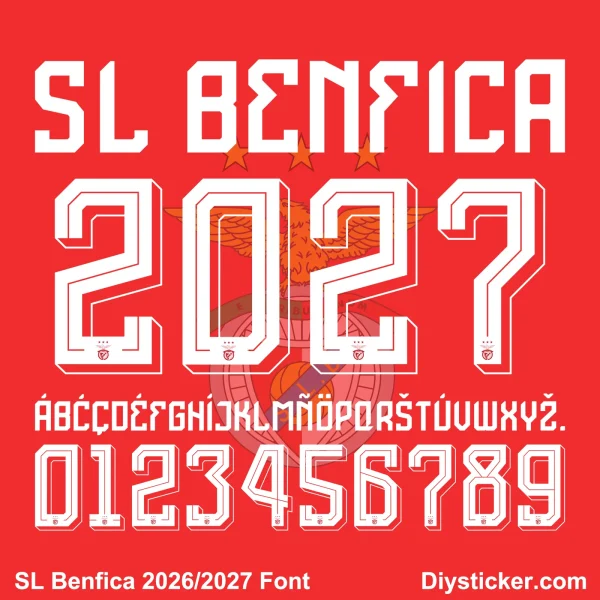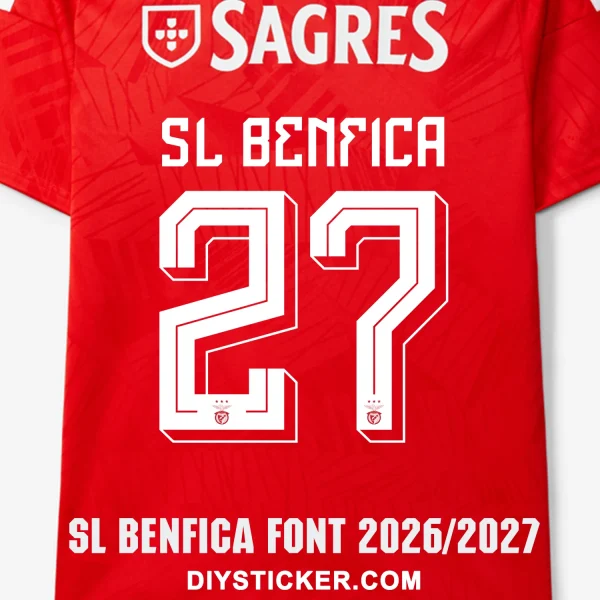
Unlock the complete digital toolkit for premium soccer kit customization. This premium digital asset features the official SL Benfica 2026-2027 font and numbers, perfectly replicated for the upcoming 2026-2027 season. Specially engineered for jersey customization shops, DIY crafters, and printing houses, this package offers instant digital access right after payment.
SL Benfica 2026-2027 Font & Numbers Vector Kit: The Ultimate Customization Asset
Elevate your custom sports apparel and typography designs with the official SL Benfica 2026-2027 font and numerical layout toolkit. This digital download package replicates the stunning visual identity used by the Portuguese giants across local competitions and elite European tournaments. Whether you are producing a bespoke name set for a passionate fan or mapping out wide-format print designs, this asset delivers professional-grade accuracy down to the pixel. Explore our wider collection of high-quality football typography assets by visiting our comprehensive club fonts section.
SL Benfica 2026-2027 Font Design & Visual Aesthetics
The SL Benfica 2026-2027 font breaks away from traditional block letters to introduce a highly personalized visual style. Key aesthetic features include:
3D Cuboid Geometric Structure: The numbers feature an advanced three-dimensional isometric block outline, giving names and numbers an aggressive, modern, and deep spatial presence on the kit.
Pinstriped Twin-Line Inlay: A meticulous dual-line inner stroke contours every character, establishing a rich, textured depth that pops vibrantly against team fabrics.
Laser-Sharp Crest Integration: The bottom of each number features a perfectly embedded, high-resolution SL Benfica club crest, ensuring authenticity for true enthusiasts.